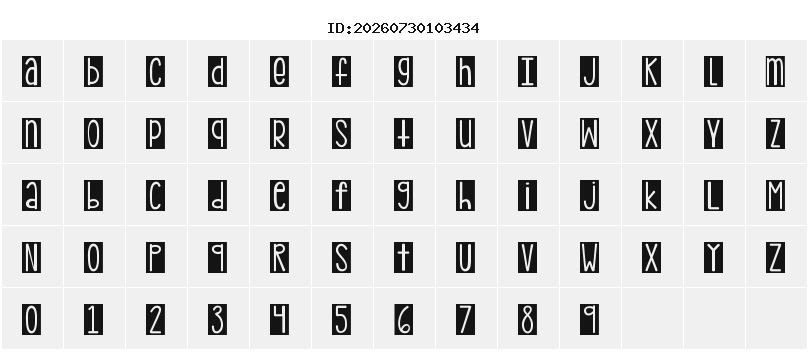
KG PDX Blocks Preview
• Font Name: KG PDX Blocks
• Designer: Kimberly Geswein
About KG PDX Blocks.ttf
KG PDX Blocks.ttf is a modern, elegant sans-serif font designed for ultimate readability and visual harmony. Perfect for branding, headlines, web design, and print materials.